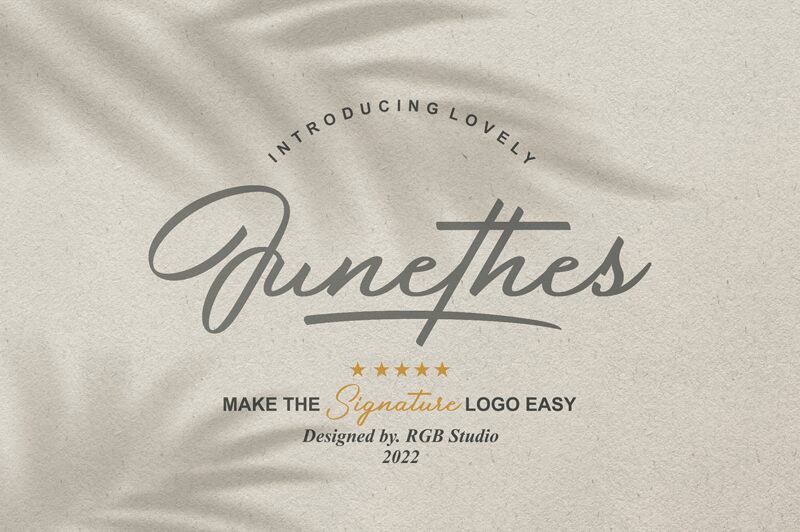
Junethes, designed by RGB Studio, is a handwritten font that exudes charm and personality. Its sweet script style is not only highly legible but also authentically crafted to add a personal touch to your design projects. With its elegant flow and distinct character shapes, Junethes invites a sense of warmth and intimacy that is ideal for creating memorable impressions.
Perfect for a range of applications, Junethes shines in settings that call for an intimate, bespoke feel. It's an excellent choice for enhancing photography with captions that connect, designing business cards that stand out with a signature touch, crafting wedding materials imbued with romance, or fashioning logos and t-shirt designs that require a stroke of individuality. Whether it's used in magazine headlines, quotes on social media graphics, stylish watermarks on images, sophisticated invitations or personal signatures-Junethes adds that desirable human element to any creative work.